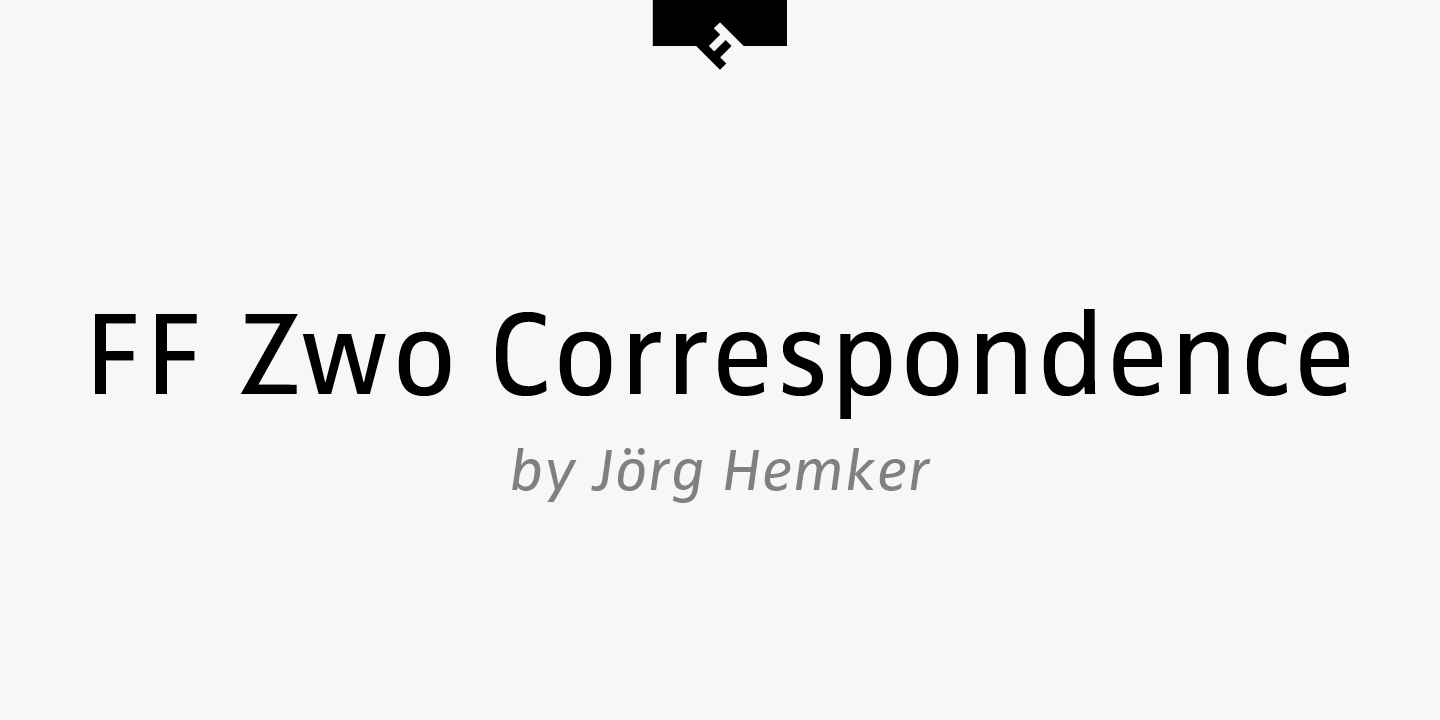
FF Zwo Correspondence Font is perfect for formal business letters, corporate correspondence systems, professional email templates, diplomatic communication materials, legal document formatting, executive stationery designs, institutional letterheads, official memorandums, administrative documentation, professional communication platforms, and any project that requires authoritative correspondence character with business communication sophistication.
What makes FF Zwo Correspondence Font exciting is its exceptional optimization for professional written communication through carefully balanced letterforms that ensure maximum readability and professional appearance in formal correspondence environments. This sophisticated typeface features precise proportions with business clarity that convey authority and professionalism while maintaining excellent legibility across all correspondence formats. The font's correspondence character adds instant business credibility and professional appeal to any design, making it perfect for organizations requiring formal communication excellence and corporate documentation standards.
FF Zwo Correspondence Font comes in multiple font families including Regular, Bold, Light, Italic, Medium, and Business variations, providing designers with comprehensive options to create professional compositions and achieve the perfect correspondence aesthetic for business-focused design projects.
Whether you're developing corporate identity systems, creating professional documentation materials, or designing business communication campaigns, FF Zwo Correspondence Font Free Download offers the perfect solution for projects demanding authentic correspondence character and business sophistication. This professional typeface excels in both print and digital applications where formal presence is essential, ensuring your designs communicate business excellence and corporate professionalism. The authoritative character and business styling of FF Zwo Correspondence Font make it an indispensable tool for designers who prioritize professional communication, corporate correspondence, and business documentation excellence in their typographic selections.